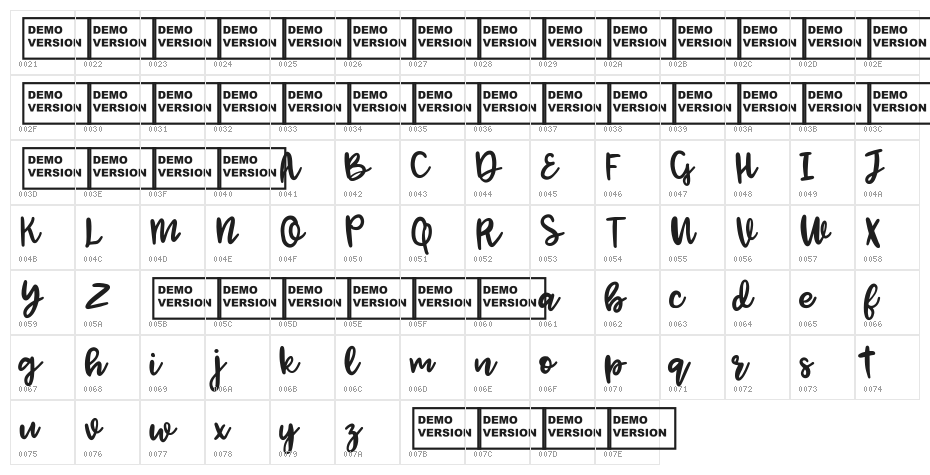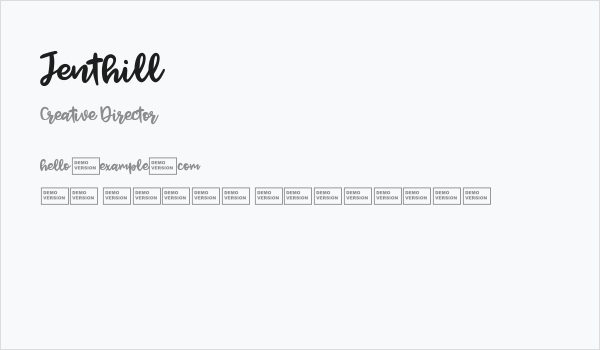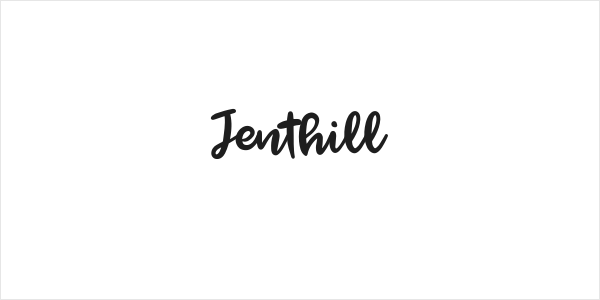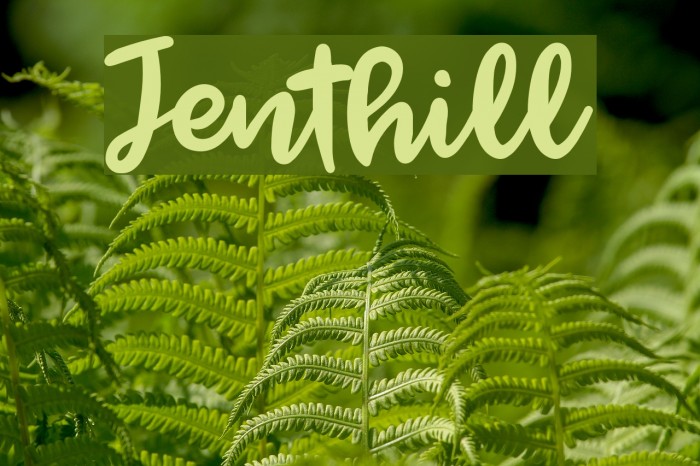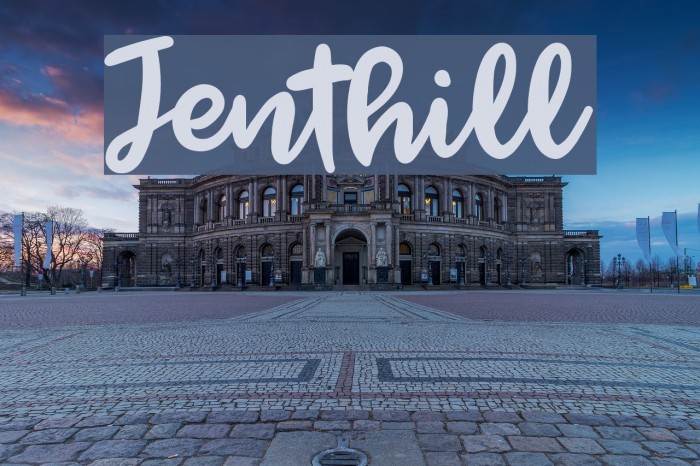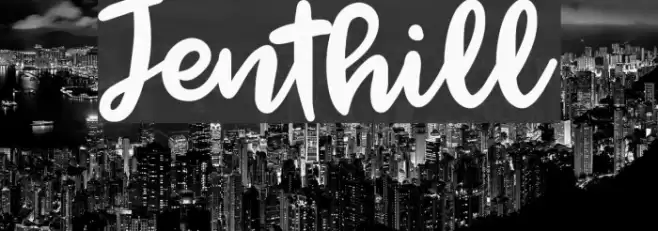
Jenthill Font
Jenthill Description
This font features a bold, handwritten style with smooth, flowing curves and a playful, casual appearance. The uppercase and lowercase letters maintain a consistent thickness, giving it a cohesive look. The characters are closely spaced, enhancing its dynamic and energetic feel. The strokes are rounded and fluid, creating a sense of movement and liveliness. This font is ideal for projects that require a personal touch or a creative flair, such as invitations, greeting cards, or branding materials. Its unique style makes it stand out, while still being legible and versatile.
| Overall Style | Casual, Playful |
| Use Case | Logos, Headlines, Creative projects |
| Proposed Projects | Ideal for invitations, greeting cards, branding, and creative projects. |